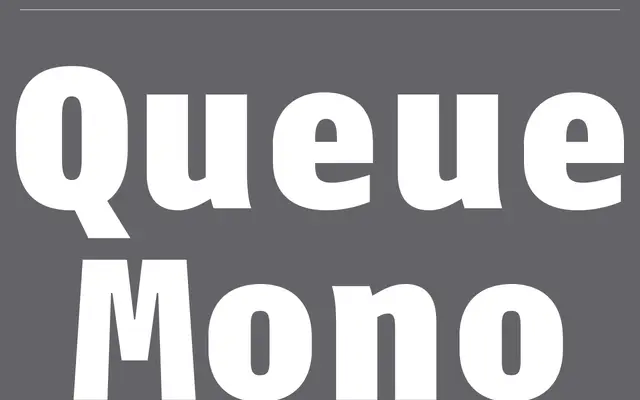
Queue Mono specimen from Balto / Type Supply
A monospaced companion to Queue, sharing its blend of technical and humanist character across six weights.
Adapted from the proportional Queue typeface, Queue Mono applies uniform widths while retaining the original family's stated 'technology and humanity' balance. Six weights from Thin to Black are available, with OpenType features including a dotted zero, big asterisk and case-sensitive forms suited to code and data contexts. As of its B1 release in May 2021, italics remain in development with no confirmed timeline.
Explicitly a monospaced typeface, derived from the proportional Queue family, with uniform character widths adapted for code and technical settings.